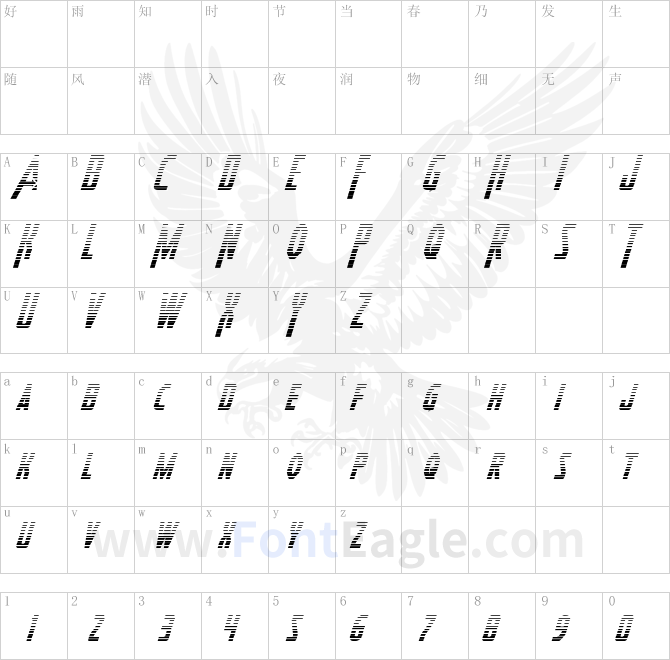
Heroes-Assemble-Gradient-Italic-copy-2- is a great font, widely used in graphic design, single-page menu design, poster design and other fields, and is deeply loved by designers.Heroes-Assemble-Gradient-Italic-copy-2- download.